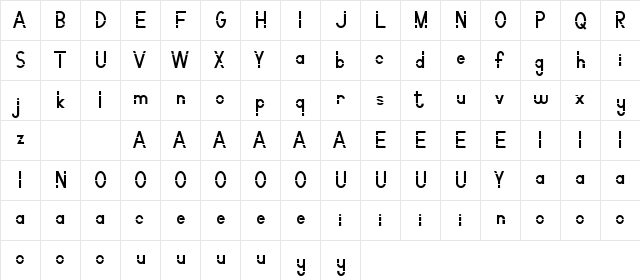
Holters Demo Slice Regular
Design Context for Holters Demo Slice Typeface
Holters Demo Slice offers clean, dependable letterforms without strong stylistic allegiance, making it a practical choice for designers who need flexibility.